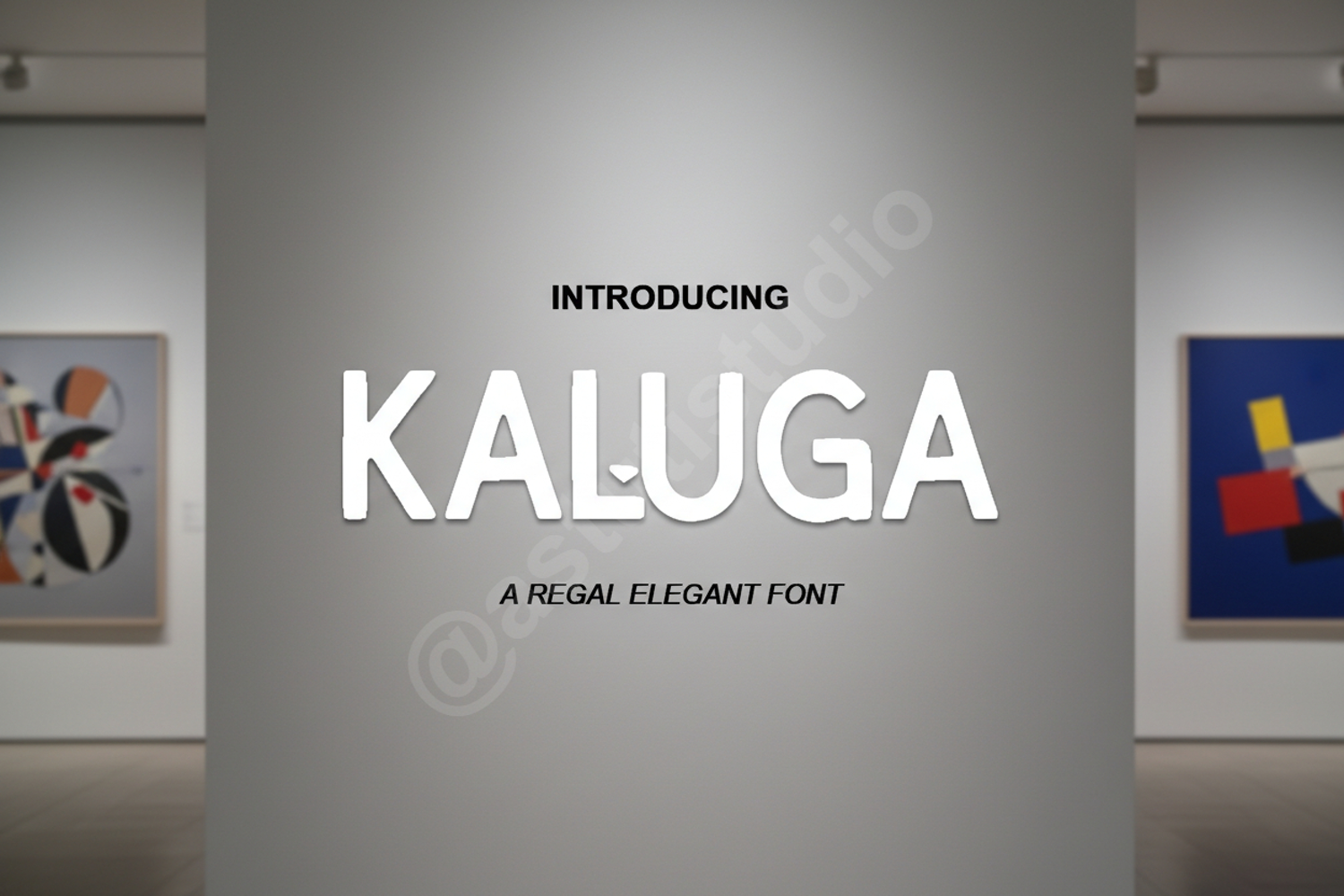
Kaluga - Sophisticated Modern Serif Typeface
Kaluga
Experience the perfect blend of tradition and modernity with Kaluga, a premium serif font meticulously crafted for high-end design projects. Its clean lines and elegant curves offer a sophisticated aesthetic that commands attention while maintaining exceptional readability. Whether you are building a luxury brand or designing a minimalist layout, Kaluga provides the versatile foundation your creative work deserves.
- Comprehensive set of uppercase and lowercase characters
- Unique ligatures and alternates for custom flourishes
- Full multilingual support for global reach
- Luxury Branding and Identity: Create a lasting impression with a font that exudes class.
- Wedding Stationery: Perfect for elegant invitations, menus, and place cards.
- Editorial Design: Ideal for magazine headers, body text, and high-fashion spreads.
- Logo Design: Build a professional brand mark with timeless appeal.
- Social Media Content: Elevate your Instagram quotes and Pinterest graphics with a premium touch.